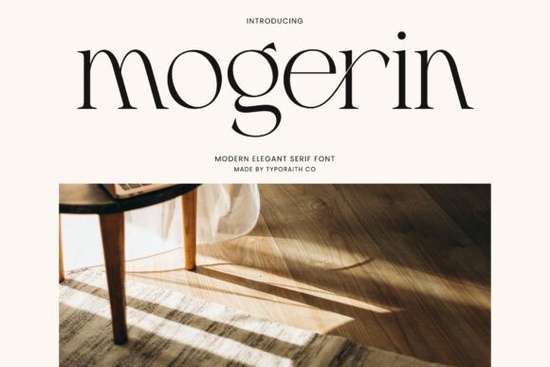
If you're working on a luxury brand identity, high-end editorial layout, or premium packaging design, the right typeface can make all the difference. Mogerin Font stands out as a refined modern serif that blends architectural sharpness with subtle elegance ideal for projects where “quiet luxury” is the goal. With its high-contrast strokes and distinctive ligatures (especially the fluid “e–r” connection), Mogerin brings sophistication without shouting for attention.
Unlike more ornate serifs, Mogerin balances bold presence with restraint. Its sharp terminals and even proportions echo the clean lines found in fashion editorials and minimalist product design. This makes it especially useful for designers creating mastheads, cosmetic labels, or lifestyle branding where clarity and class matter more than flourish.
What makes Mogerin different from other modern serifs?
Many contemporary serifs lean heavily into either minimalism or drama but Mogerin finds a middle ground. It’s structured enough to feel precise, yet its unique letterforms (like those avant-garde ligatures) add just enough personality to avoid feeling sterile. Compare it to Slugger Union, which has a bolder, more graphic presence, or Cruel Summer, whose romantic curves suit vintage-inspired aesthetics. Mogerin, by contrast, feels current and editorial think high-fashion magazines rather than retro apothecary labels.
Another close relative is Cornella, which shares Mogerin’s emphasis on vertical stress and refined detailing. But where Cornella leans slightly more traditional, Mogerin pushes forward with its experimental connections and tighter spacing, giving it a distinctly 21st-century edge.
Where should you use Mogerin Font?
This font shines in contexts where tone and texture matter as much as readability:
- Luxury brand logos – especially for skincare, fragrance, or boutique fashion lines
- Editorial headlines – magazine covers, feature spreads, or digital publications aiming for a polished look
- Premium packaging – think gold-foil stamped boxes or minimalist bottle labels
- Invitations and stationery – for upscale events where typography sets the mood
Because of its high contrast, Mogerin works best at larger sizes. It’s not ideal for body text or small print stick to display use where its details can be appreciated. Also, pair it with clean, neutral sans-serifs (like Helvetica Neue or Inter) to let its character stand out without visual competition.
How does it perform in real-world projects?
Print-on-demand sellers have used Mogerin successfully for mockups of luxury candle labels and skincare sets, where the font conveys quality at a glance. Small creative studios report strong client reactions when using it in mood boards for rebrands in the wellness or fashion space. One designer noted, “Clients instantly associate it with exclusivity it reads expensive without being gaudy.”
For crafters making custom wedding signage or high-end greeting cards, Mogerin adds a touch of editorial polish that elevates simple designs. Just remember: less is more. A single word set in Mogerin often carries more impact than a full paragraph.
Mogerin is powerful but only if it fits your project’s needs. Ask yourself:
- Is this a display use (headlines, logos, large text)? If yes, proceed.
- Does your brand value subtlety over loudness? Mogerin excels in “quiet luxury,” not maximalism.
- Have you tested it alongside your color palette and imagery? Try it over soft neutrals or matte black backgrounds to see how the contrast plays out.